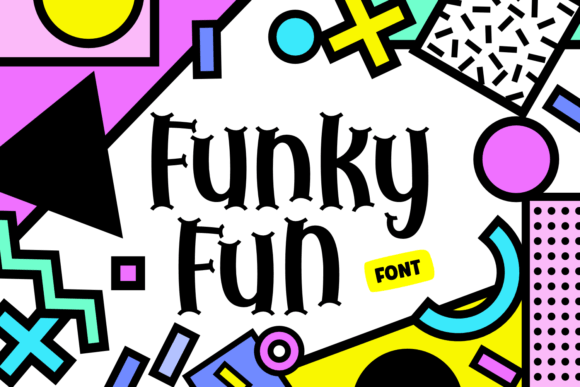
Funky Fun Font
Introducing Funky Fun Font, a whimsical and charming serif font that exudes cheerfulness and exudes creativity. Handcrafted by the talented Riman (7NTypes), Funky Fun Font features a lively personality that's guaranteed to make your designs pop.
With its intricate swirls and playful curves, Funky Fun Font evokes a sense of joy and playfulness that's perfect for capturing the essence of fun and excitement. Whether you're crafting eye-catching flyers, designing vibrant digital graphics, or creating heartfelt greeting cards, this font is your perfect partner in artistic expression.
Step into a world of imagination with Funky Fun Font and let your creativity soar. Use it to craft unique branding materials that radiate charm and distinctiveness. Create presentations that exude enthusiasm and leave a lasting impression. Design invitations and greeting cards that bring smiles to faces and make hearts dance.
Funky Fun Font is not just another font; it's a gateway to a realm where creativity blooms and joy abounds. It's the perfect choice for those seeking a font that embodies the essence of fun and transforms ordinary designs into extraordinary expressions of artistry.
So, embark on an adventure of artistic exploration with Funky Fun Font and let your imagination run wild!